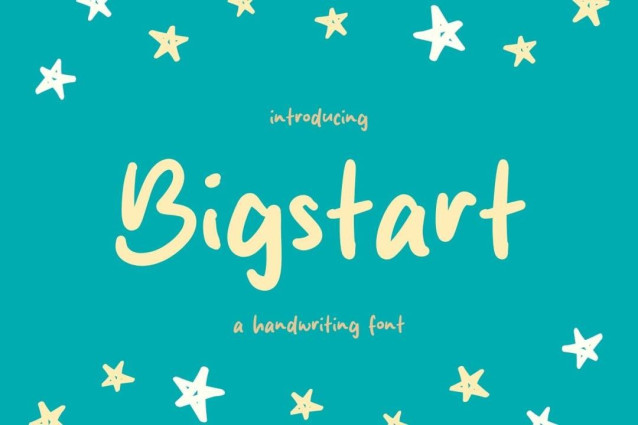
Bigstart Font
Bigstart Font is a simple and friendly handwritten font. Its natural and unique style makes it incredibly fitting to a large pool of designs. The only limit is your imagination!